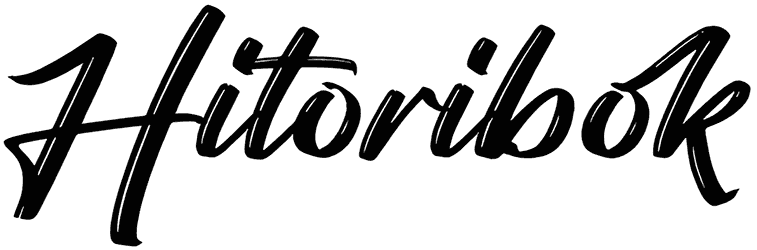
Hitoribok Font
With handwritten words, you can show your creativity in numerous modern or classic designs. This brush font, which is called Hitoribok, includes cool and smooth hand-drawn letters and mirrors a salient mood. With A-Z characters, this handwritten font would serve as a perfect item for various cases such as banners, postcards, apparel, and so on.